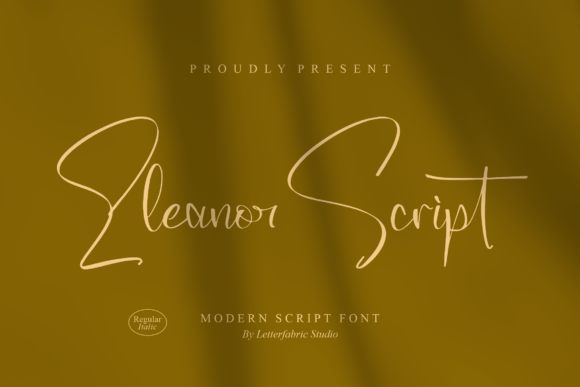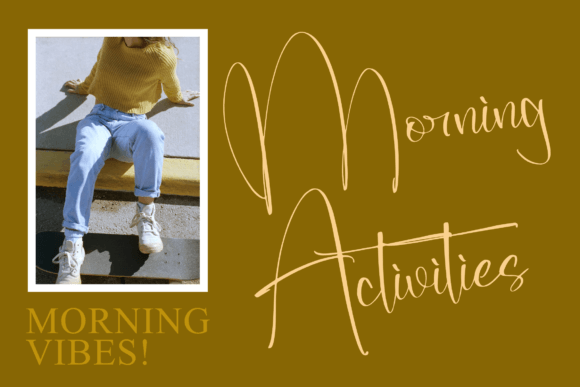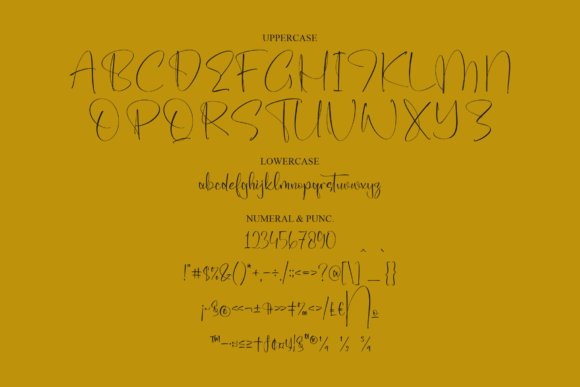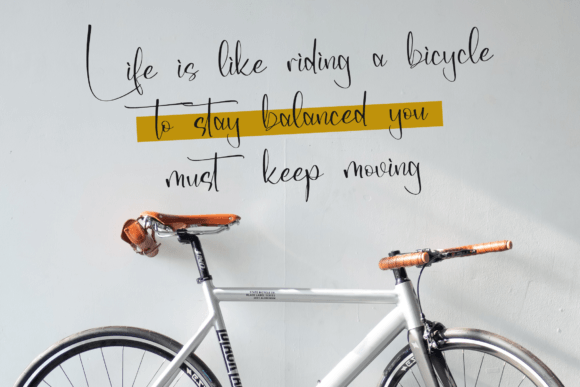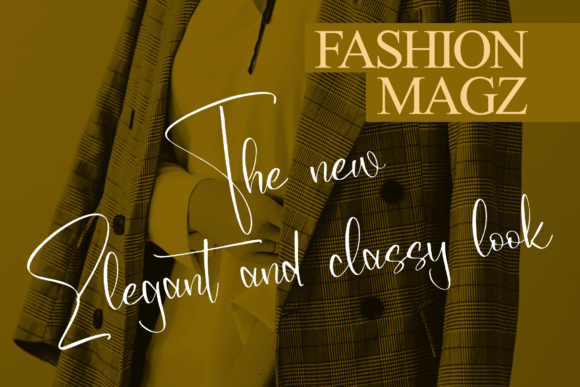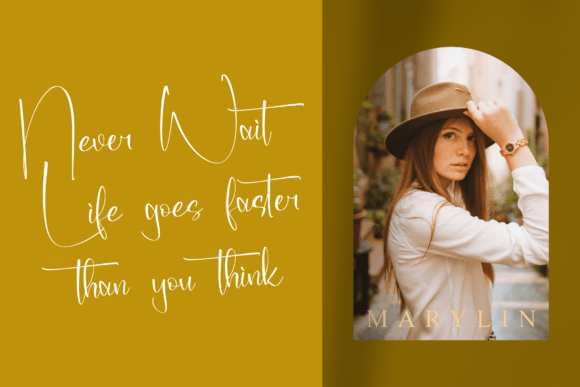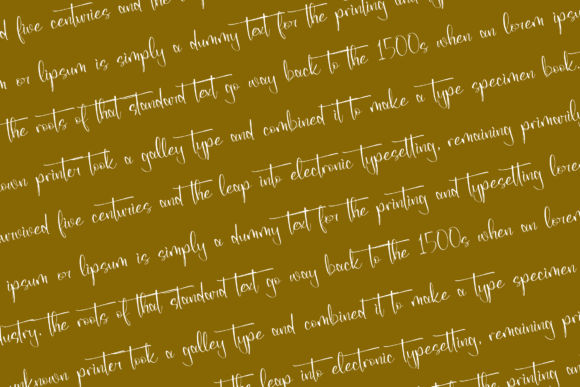
Have you ever stared at a blank canvas, struggling to find the perfect words to express your feelings? I know I have. It’s those moments when the right font can make all the difference. Whether you’re designing a wedding invitation, a birthday card, or a romantic quote, you need a font that captures the essence of love and elegance.
Enter the enchanting Eleanor Script Font, a versatile handwritten font that’s perfect for any creative project. With its wide range of applications, from headlines to greeting cards, this font is guaranteed to add a touch of romance to your next project. As a designer, you know how valuable it is to have a font that can convey emotion and style. The Eleanor Script Font is that perfect tool, allowing you to create beautiful and unique designs that will leave a lasting impression.
Eleanor Script Font Key Features
- Font Family: Script
- Character Count: 250+ glyphs, including Latin, Cyrillic, and Greek alphabets
- Unique Characteristics: Hand-drawn, elegant script font with a touch of sophistication and elegance, perfect for invitations, wedding stationery, and other high-end designs
Eleanor Script Font Review
I’ve had the chance to work with the Eleanor Script Font, and I have to say, it’s a unique addition to any design project. ✨ The flowing, cursive script makes it perfect for adding a touch of elegance to invitations, wedding designs, or even social media graphics. It’s a great choice for creating a sense of sophistication and refinement.
Here are some of the things I like about the font:
- ✨ Beautiful, handwritten feel that’s perfect for adding a personal touch
- ✨ Wide range of ligatures and swashes for added flair
- ✨ Supports a variety of languages, making it a great choice for international projects
However, I do have some concerns:
- ⚠️ Some letters can be difficult to read, especially in smaller font sizes
- ⚠️ Limited character set, which can make it tricky to use for longer blocks of text
- ⚠️ Not ideal for body text, as it can be overwhelming to read in large quantities
Overall, I think the Eleanor Script Font is a great choice for designers who want to add a touch of whimsy and elegance to their projects. Just be sure to use it in moderation and pair it with a clear, easy-to-read font for body text.
Tips for Getting the Most Out of Eleanor Script Font
Use the Eleanor Script Font to add a touch of elegance and sophistication to your designs.
Pair the font with bold, modern fonts to create contrast and visual interest.
Experiment with different font sizes and styles to add depth and dimension to your text.
Common Use Cases for Eleanor Script Font
Branding and logos
Product packaging and labels
Event signage and decorations
Alternatives to Eleanor Script Font for Designers
Ostrich Sans is a modern sans-serif script font ideal for creating a clean and elegant look. It features a unique blend of digital and hand-drawn elements, making it perfect for contemporary designs. When to use: Fashion, beauty, and lifestyle branding, as well as for headings and titles in digital interfaces.
Comparison: Ostrich Sans has a more modern feel compared to Eleanor Script Font’s classic, vintage look. It’s ideal for designers who want a clean and sophisticated look without the ornate details of Eleanor Script Font.
Great Vibes is a beautiful, elegant script font with a romantic and vintage feel. It’s perfect for creating a whimsical and dreamy atmosphere in designs. When to use: Wedding invitations, romantic branding, and for titles in luxury and high-end designs.